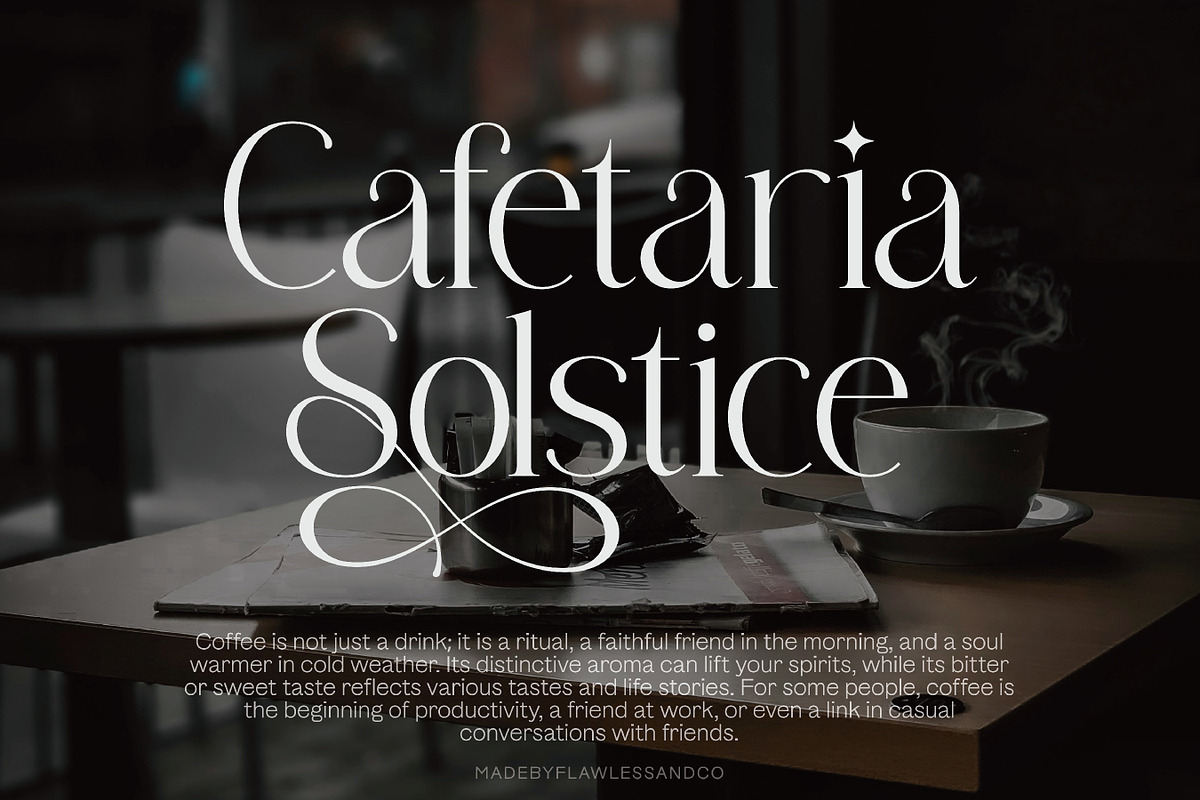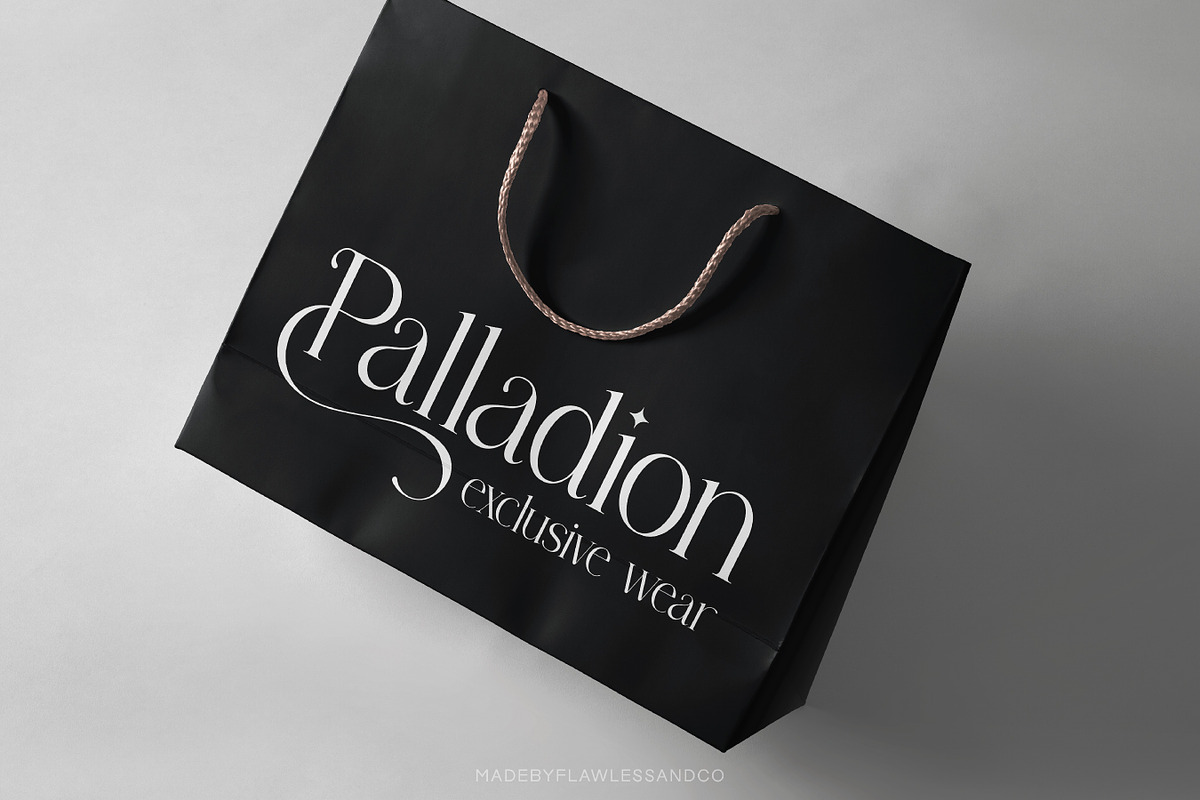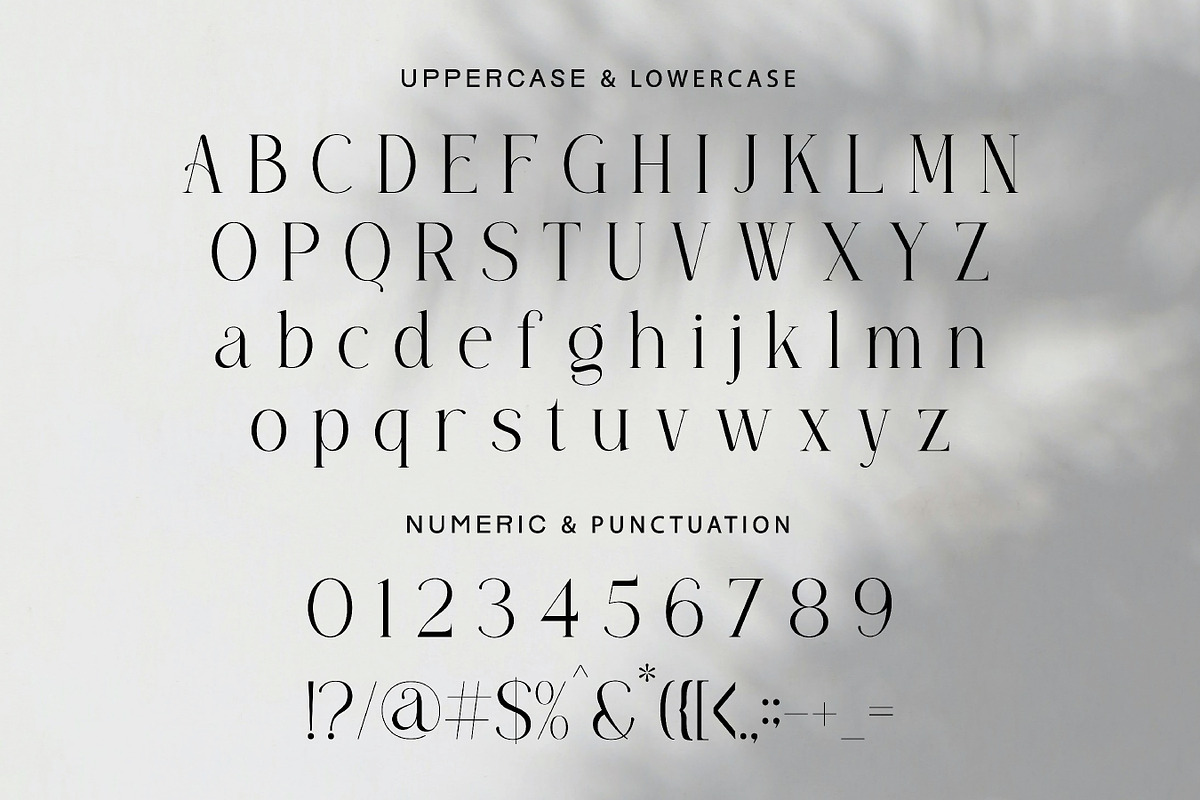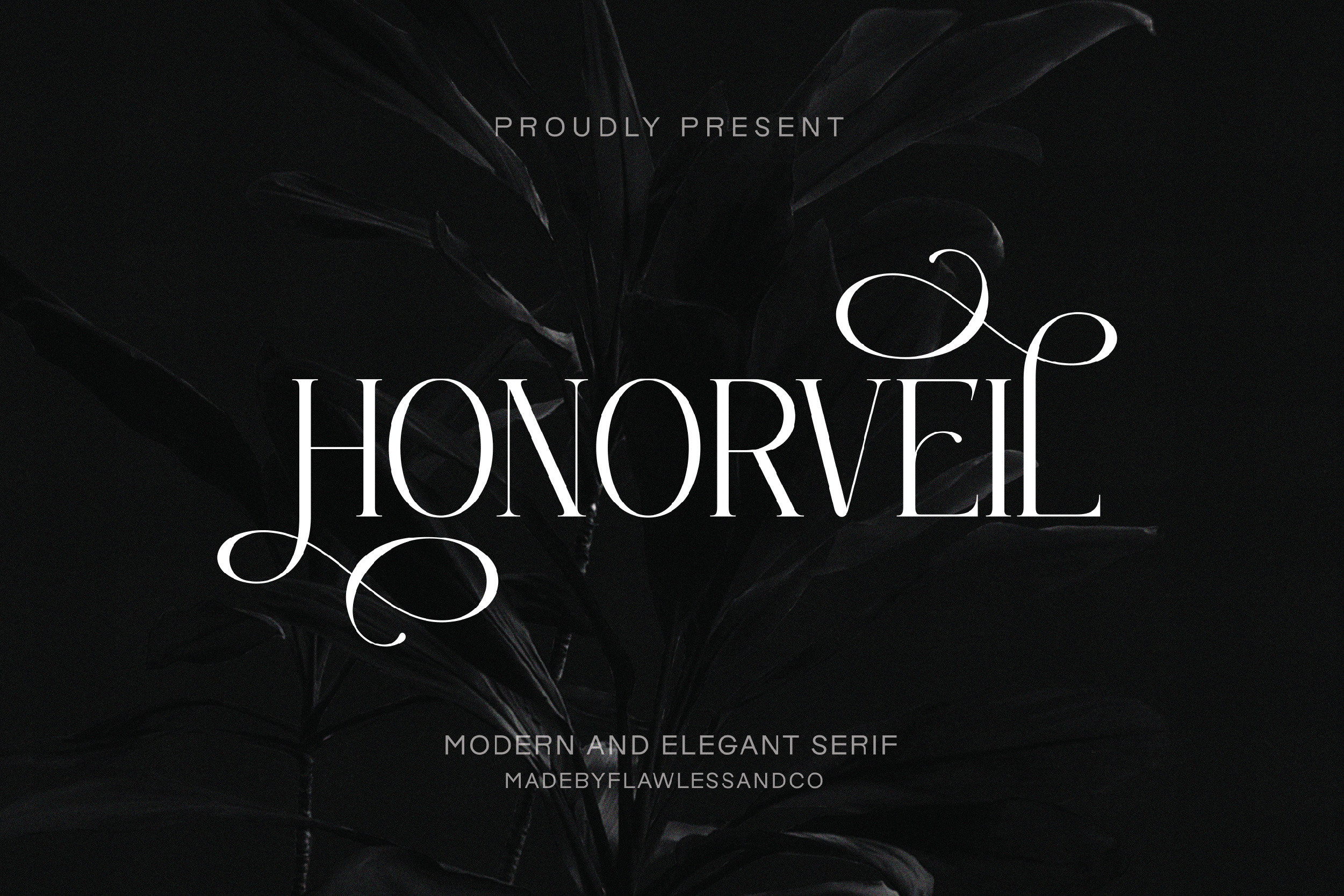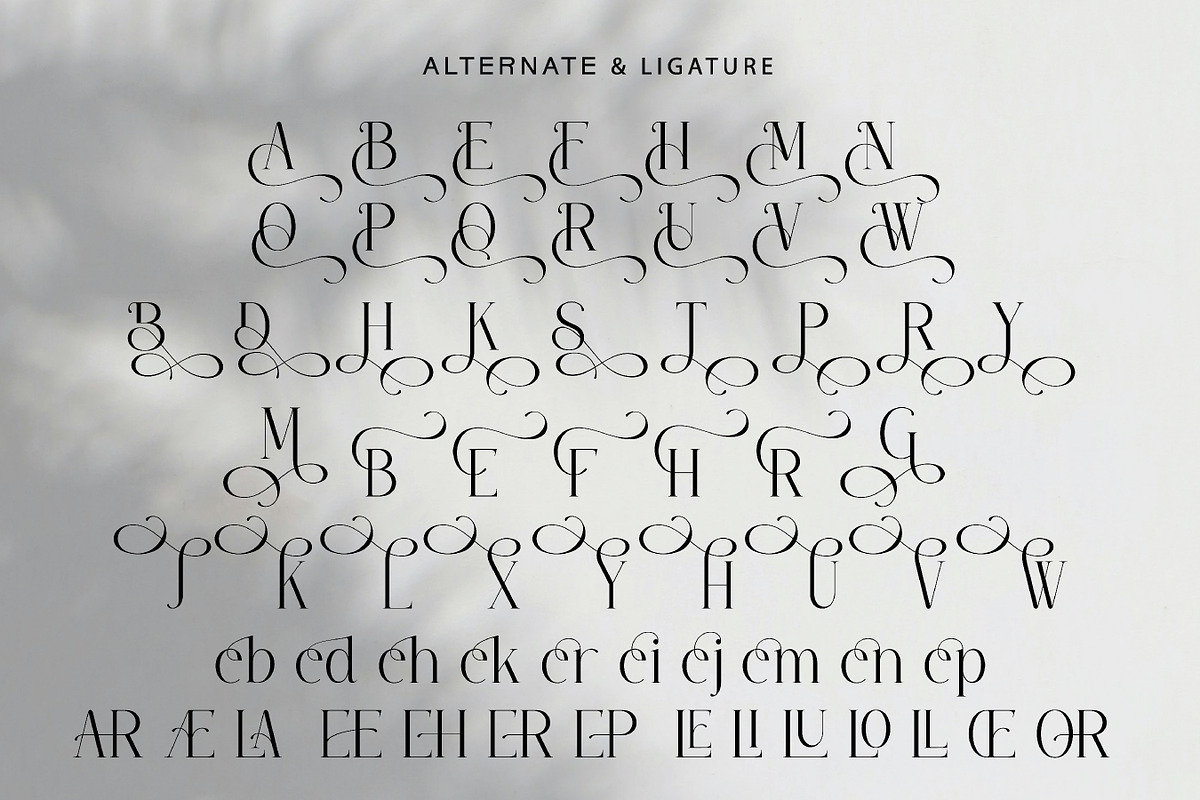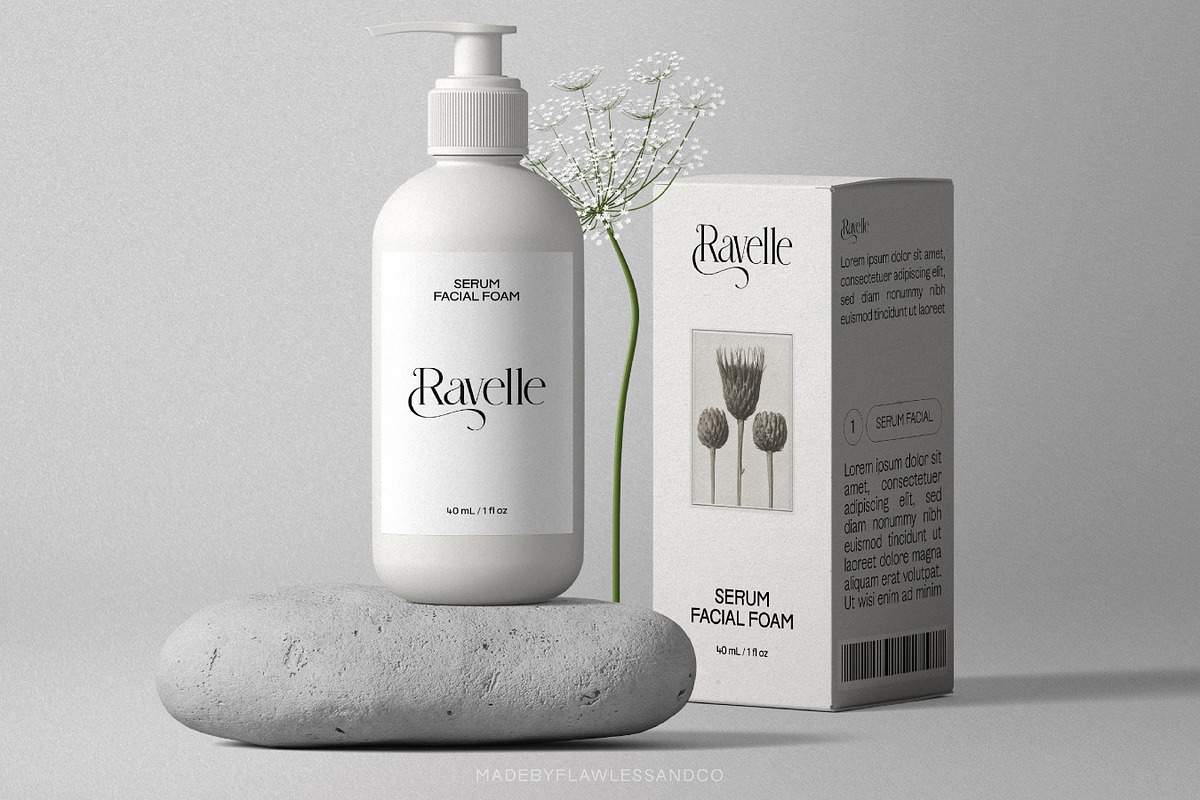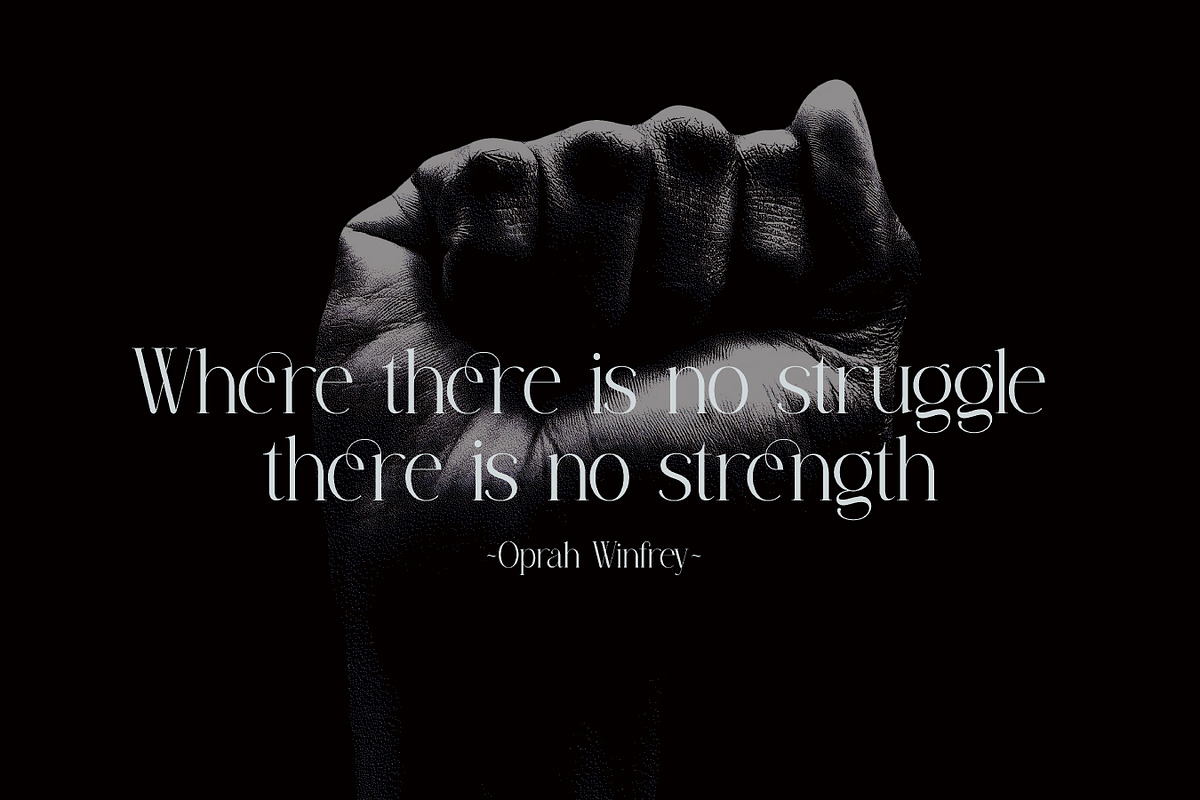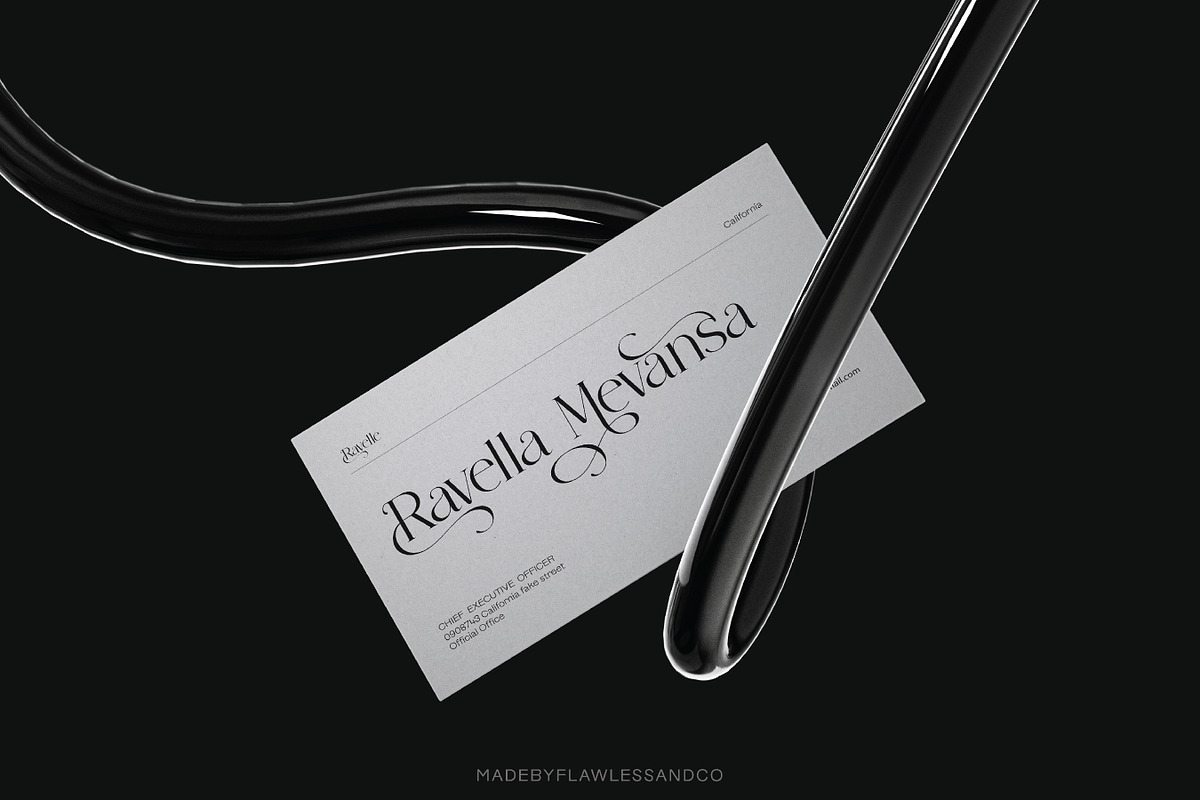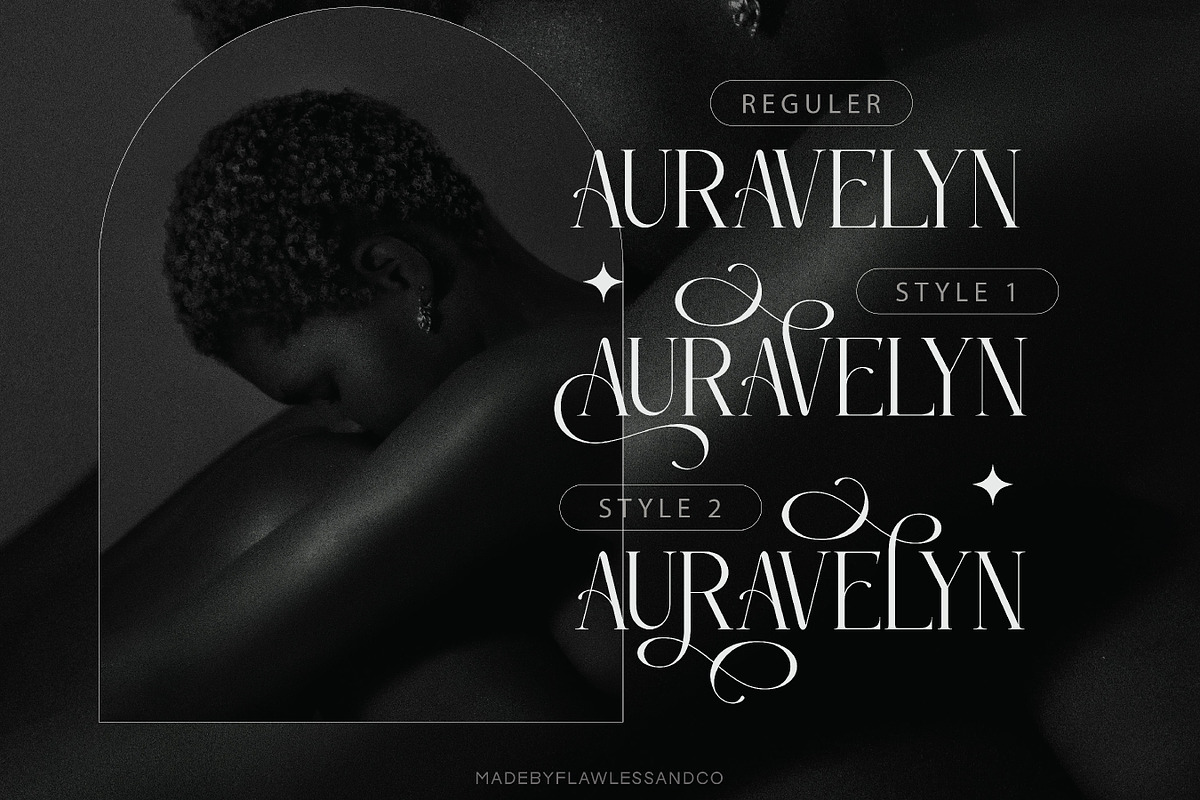
Honorveil - Elegant Serif Font
Honorveil is a modern and elegant serif font featuring beautiful alternates that add a touch of sophistication. With its refined letterforms and graceful details, this font is perfect for high-end branding, luxury packaging, editorial design, wedding invitations, and elegant logos. Honorveil brings timeless beauty and versatility to any creative project.
Multilingual Uppercase alphabet A-Z Lowercase alphabet a-z Numbers 0-9 Some punctuation Alternates & Ligatures